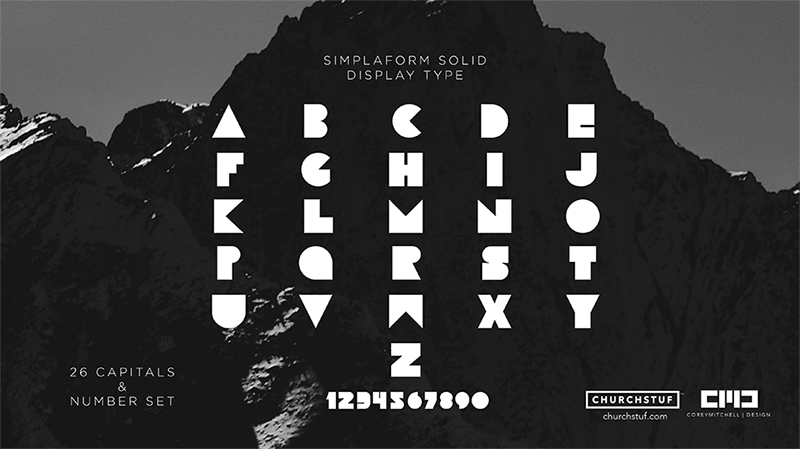
Preview and download Simplaform Solid Font. Created by Corey Mitchell in Fancy Groovy styles with Demo license.
Note by Corey Mitchell | |
I hope you like this display type as much as I do! I wanted to try to make the alphabet in its simplest (recognizable) form... hence the name Simplaform. This is an incomplete DEMO version of the typeface. If you'd like the FULL version for PERSONAL or COMMERCIAL use, please use the links below: Simplaform PERSONAL: http://churchstuf.com/?download=simplaform Simplaform COMMERCIAL: http://churchstuf.com/?download=simplaform The FULL version includes a number set and an alternate OUTLINE version. If you're content with the DEMO, donations are always appreciated. Thanks! |